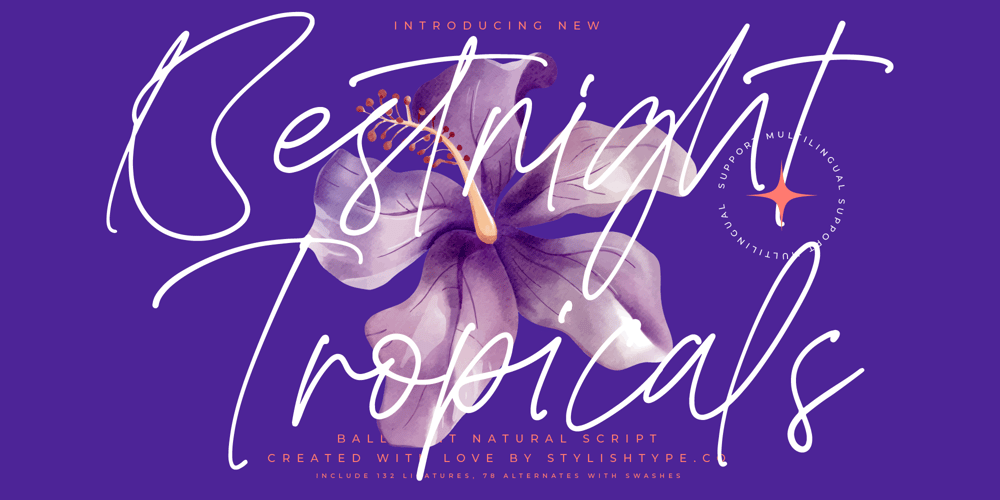
Bestnight Tropicals Font Family was designed by Heru Utama Putra and published by Stylishtype Studio. Bestnight Tropicals contains 2 styles and family package options. Bestnight Tropicals – Ballpoint Natural Script , from Stylishtype.Co , Suitable for any projects such as: logos, branding projects, homeware designs, product packaging, mugs, quotes, posters, shopping bags, t-shirts, book covers, name card, invitation cards, greeting cards, label, photography, watermark, special events, and all your other luxury and beautiful projects that need a Luxury Script taste.